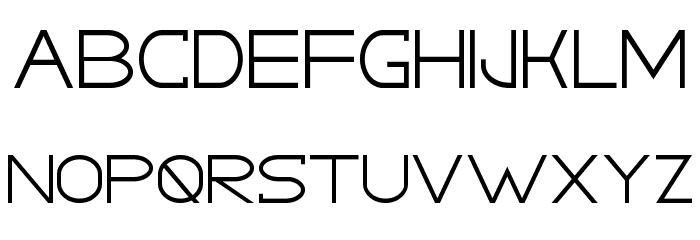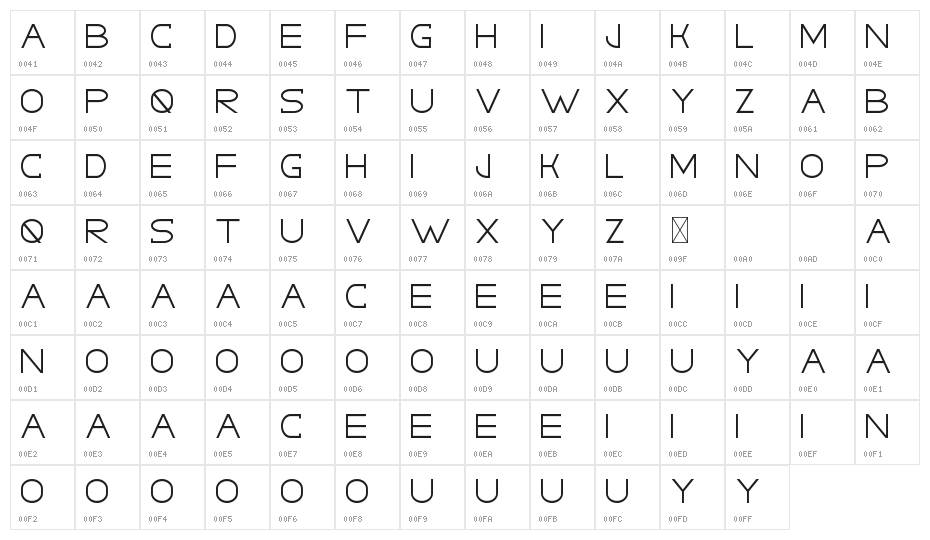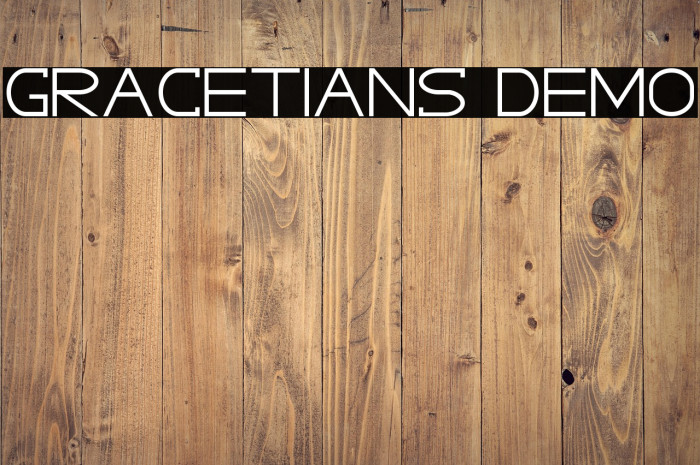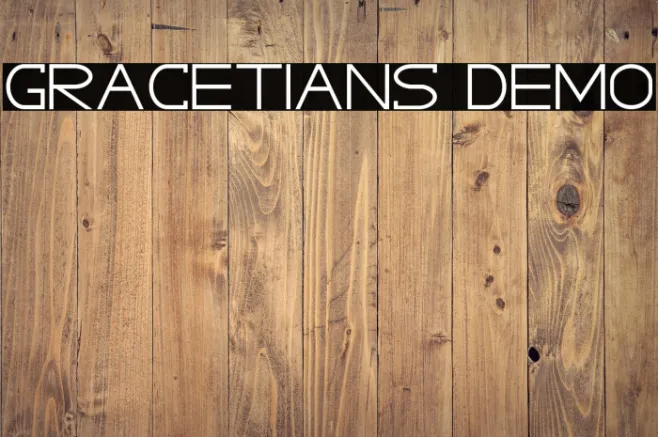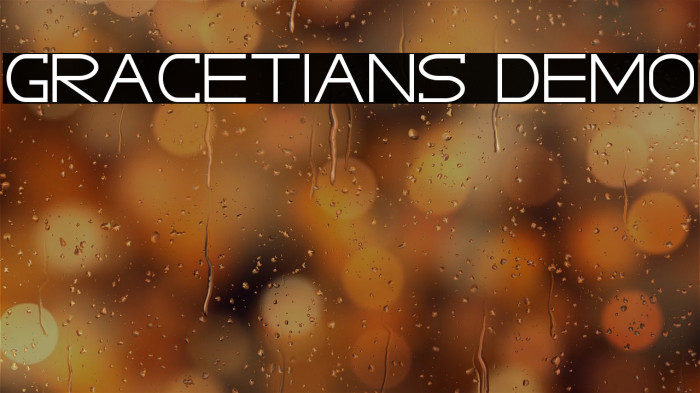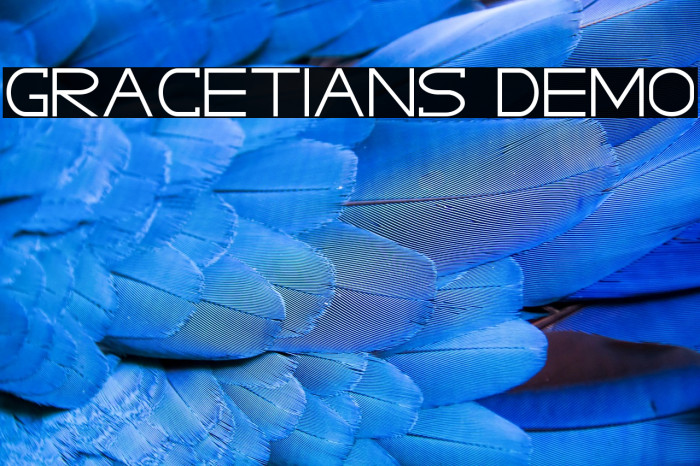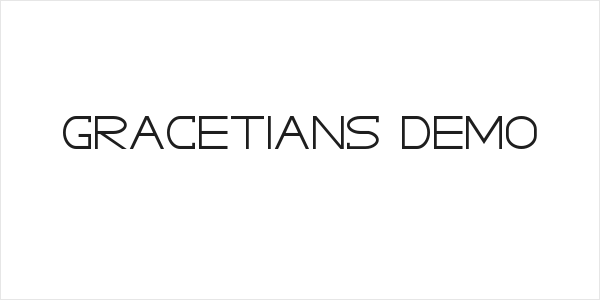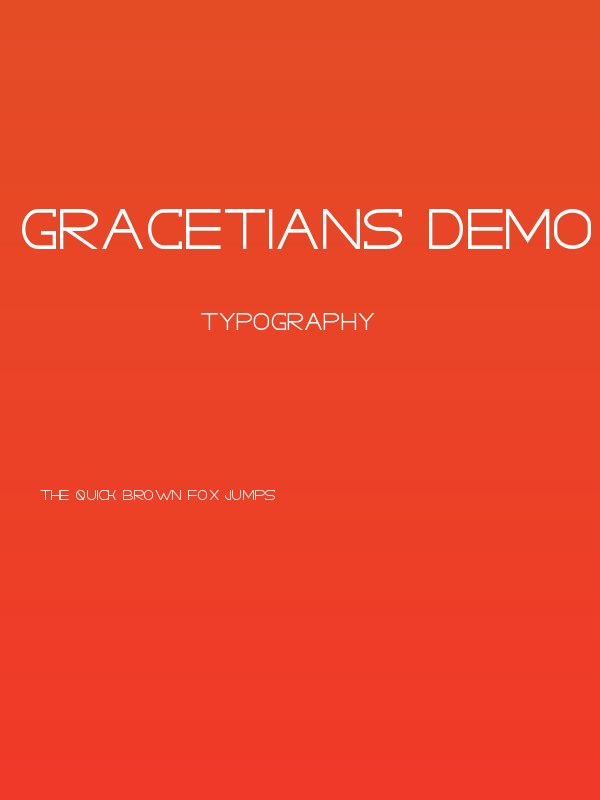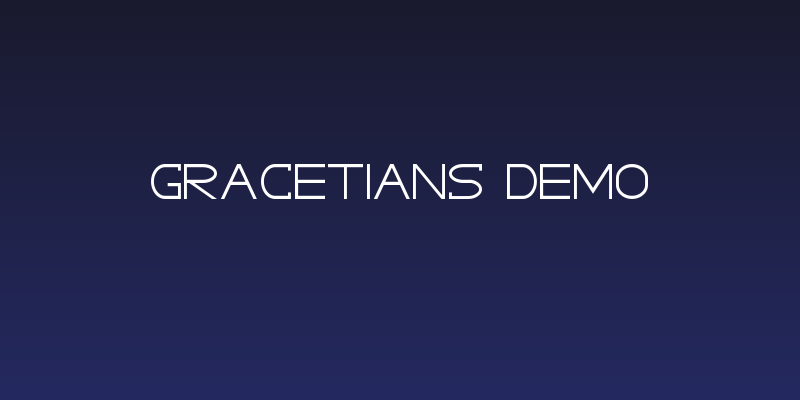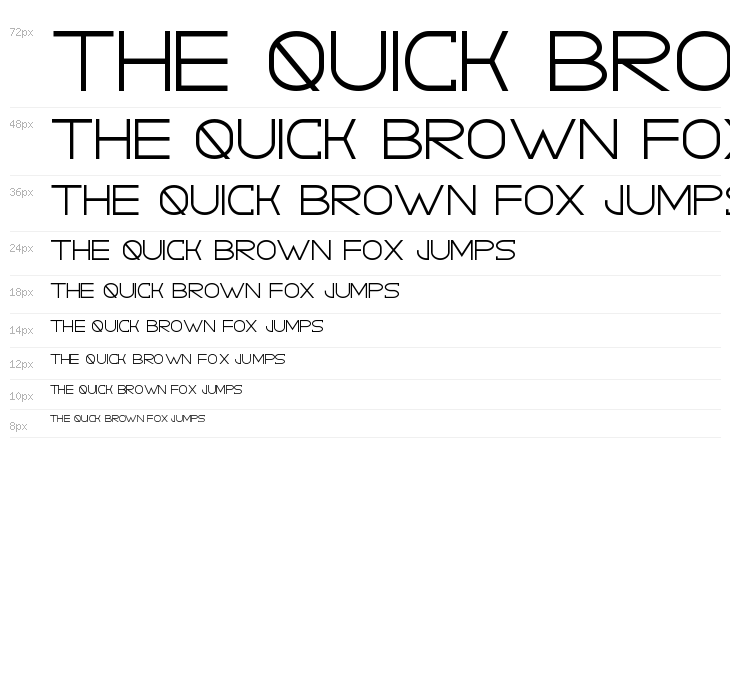
GRACETIANS DEMO Font
GRACETIANS DEMO Description
This font features a modern and geometric design with clean, straight lines and sharp angles. The uppercase letters are uniform in height, creating a cohesive and balanced appearance. The unique characteristic of this font is the incorporation of subtle curves and angles, particularly noticeable in letters like 'G', 'J', and 'Q', which add a distinctive flair. The overall look is sleek and contemporary, making it suitable for a variety of design applications. The font maintains a consistent stroke width throughout, contributing to its modern aesthetic.
| Use Case | Logos, Headlines |
| Proposed Projects | Ideal for branding, logos, and modern web design projects. |